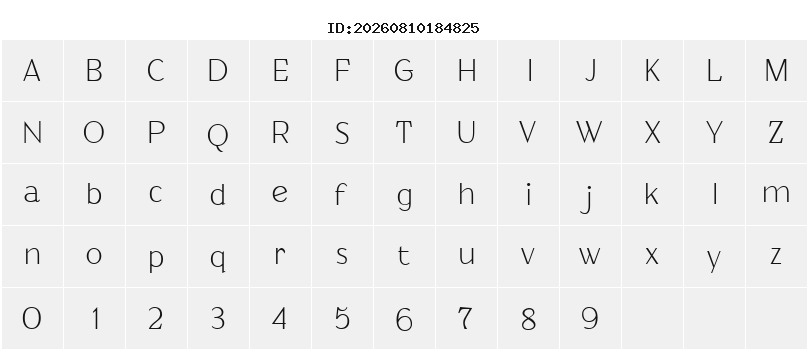
Qualettee Preview
• Font Name: Qualettee
• Full Font Name: Qualettee
About Qualettee.ttf
Qualettee.ttf is a modern, elegant sans-serif font designed for ultimate readability and visual harmony. Perfect for branding, headlines, web design, and print materials.